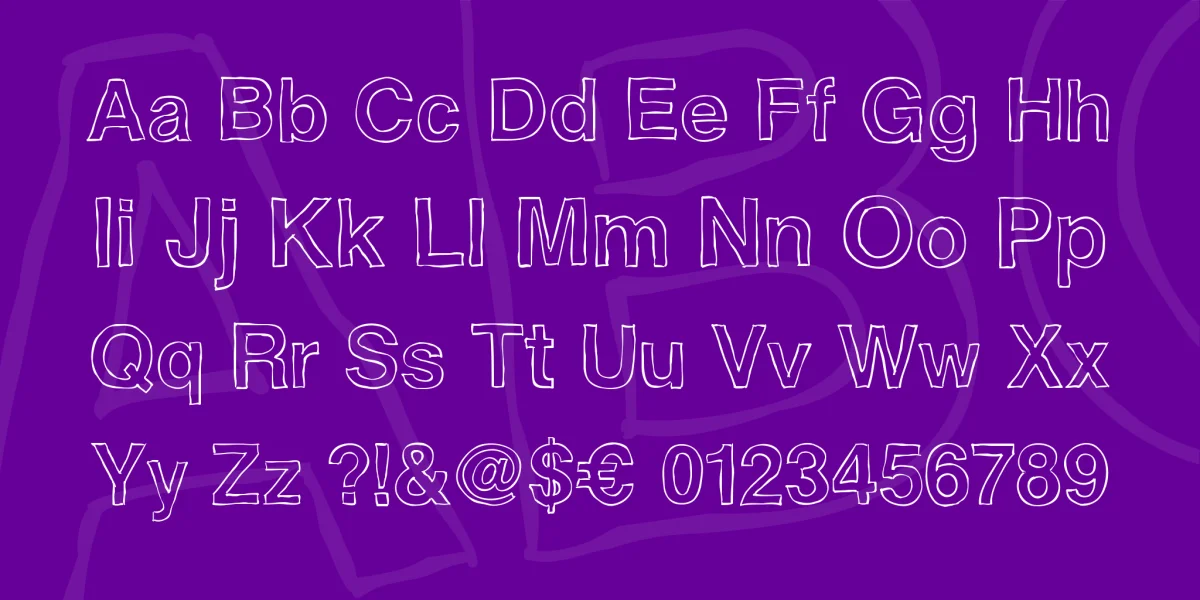
Inspired (But not copied!) by a famous font we’re all fond of. Includes lower and uppercase, numbers and a fairly comprehensive collection of punctuation/symbols. I’d love to know where my work is used, so please email me if you do enjoy it, it would brighten my day!